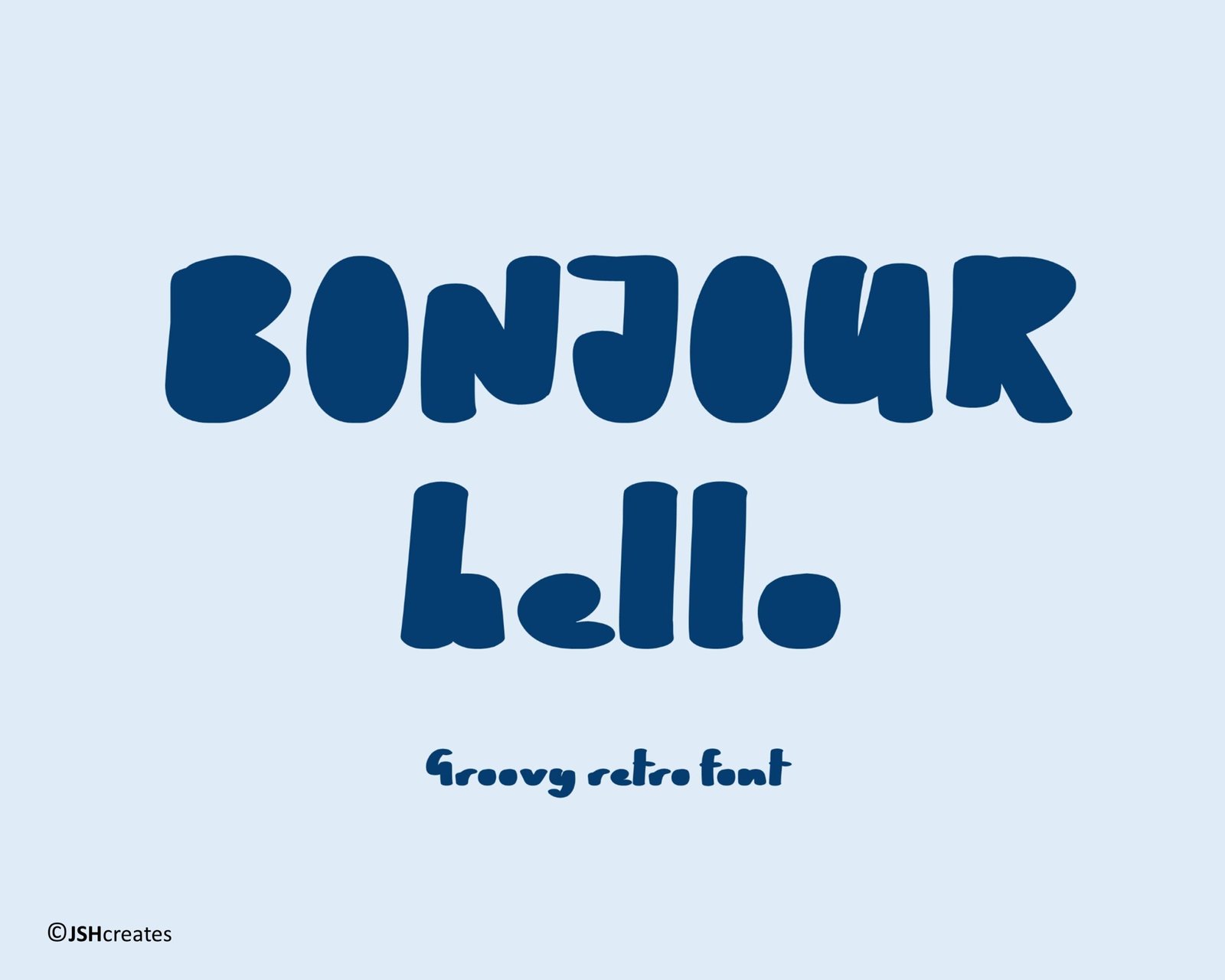
Bonjour Hello Font
Handwritten groovy retro font. “Bonjour Hello”. Perfect for advertising and display purposes, including banners, book covers, shirts, posters, logos and much more!